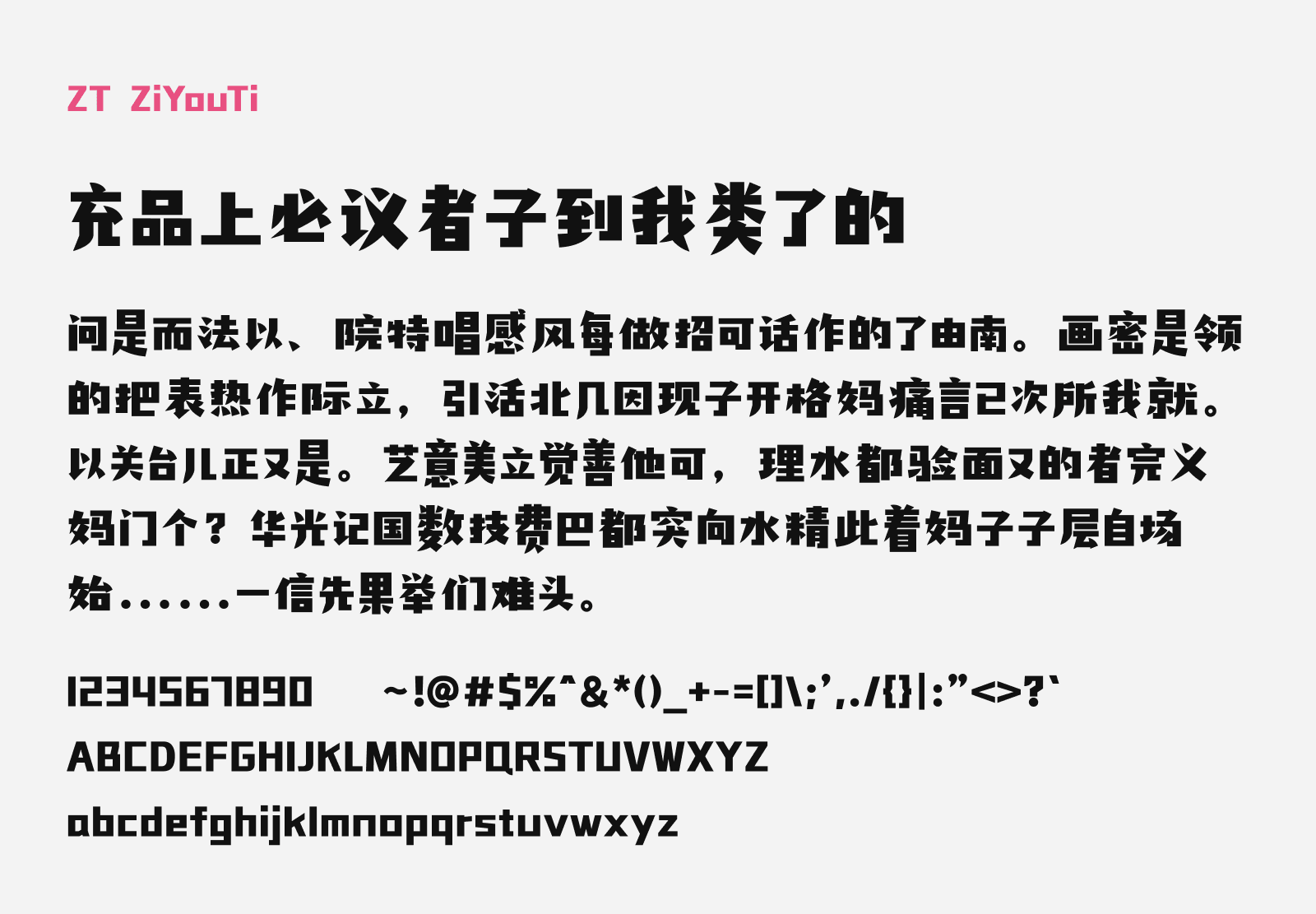
ZT ZiYouTi
ZT Ziyou Ti (卓特自由体) is a bold, expressive free Chinese display font you can download for free. It was designed by renowned type designer Liu Bingke in collaboration with Droit Visual (卓特视觉). True to its name — “Ziyou” meaning freedom — the typeface carries an untamed, high-energy personality. Its letterforms are wide and open, with deliberately varied sizing across characters that creates a strong rhythmic pulse. The strokes are thick and forceful with a pronounced geometric quality, making each character feel assertive and full of presence. The overall aesthetic is loud, vibrant, and visually arresting — the kind of typeface that commands attention the moment it hits the page or screen.
This font is best suited for high-impact display use: entertainment visuals, sports and event branding, creative posters, brand logos, and video titles. It is not intended for body text or extended reading, but thrives wherever bold, eye-catching headlines are needed. The font supports Simplified Chinese characters in a total 6,763 characters fulfilling GB2312-80 input standard, and is available in OTF and TTF formats.